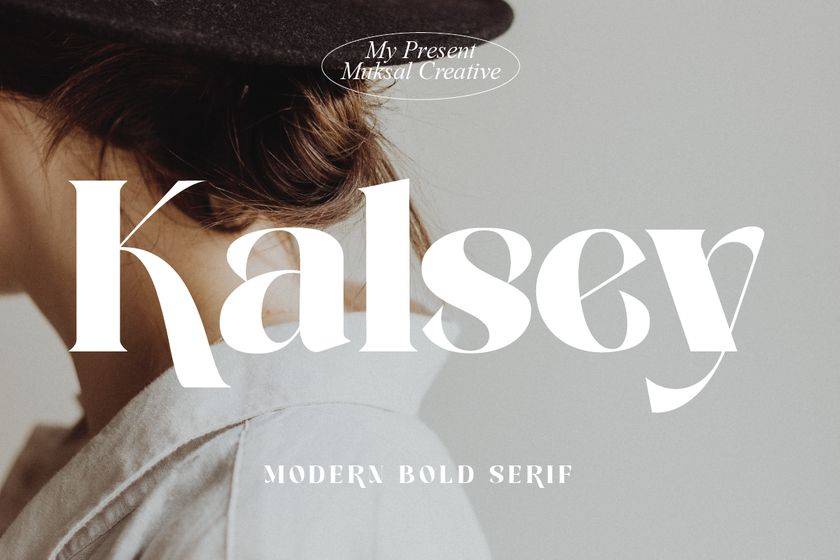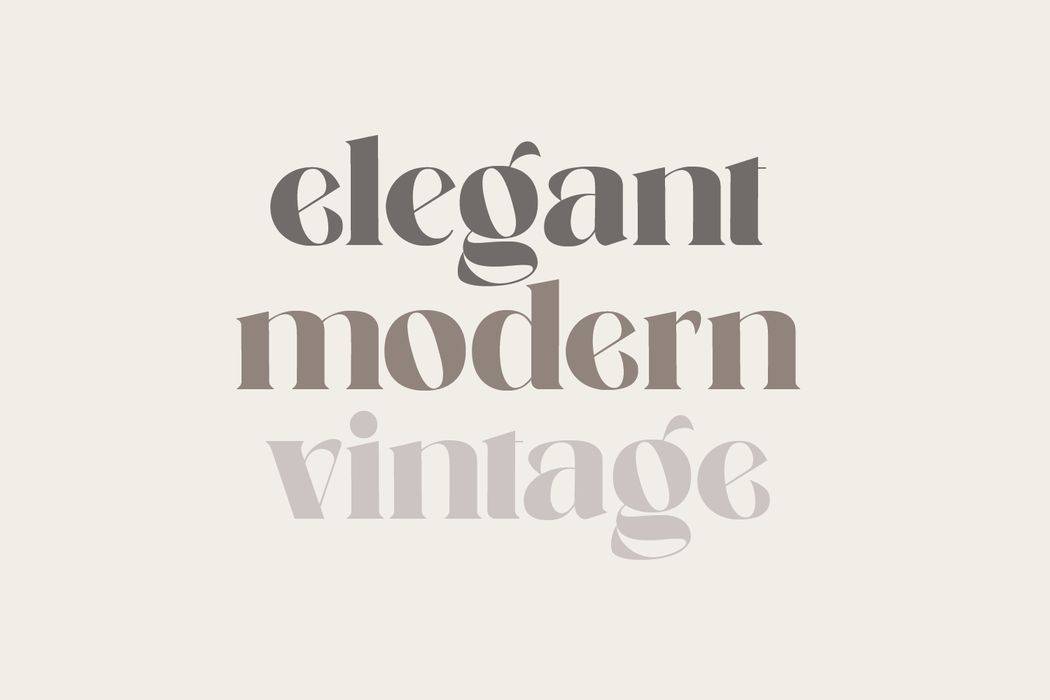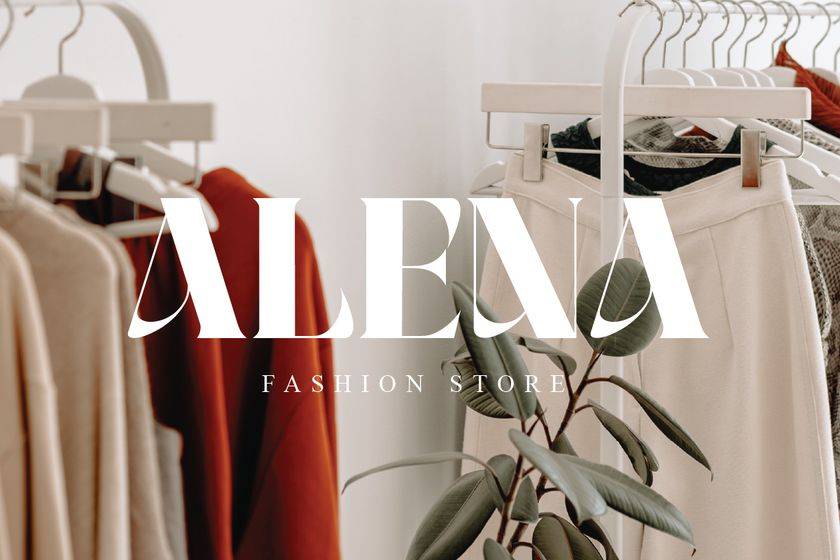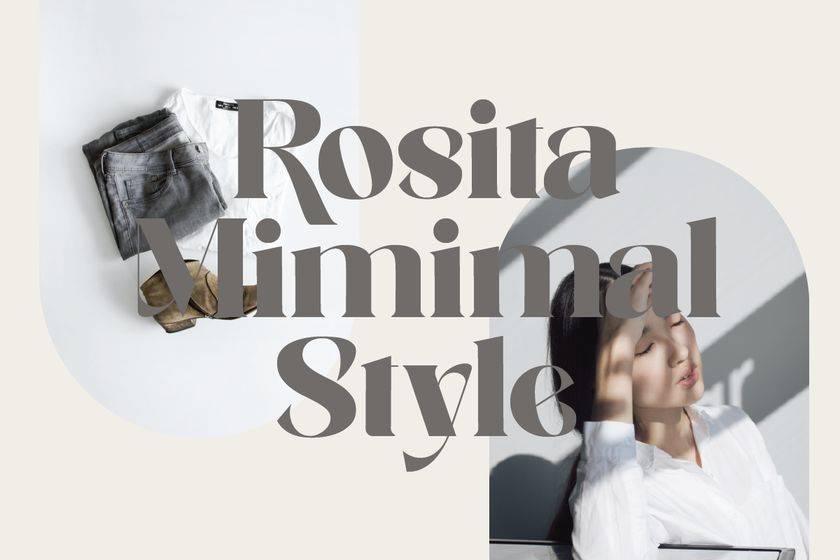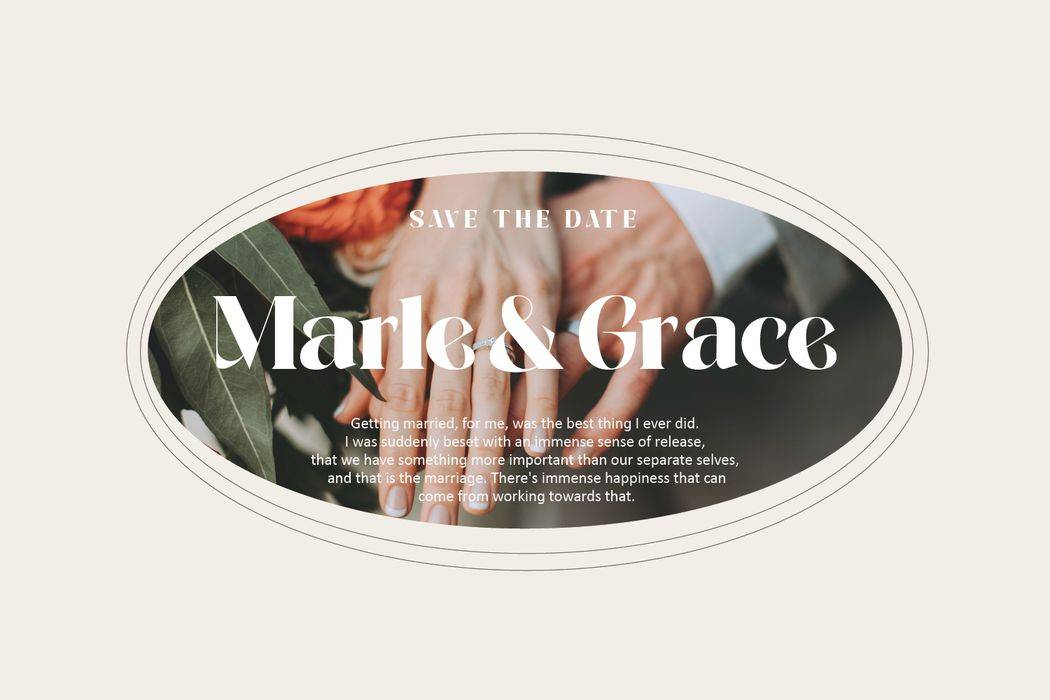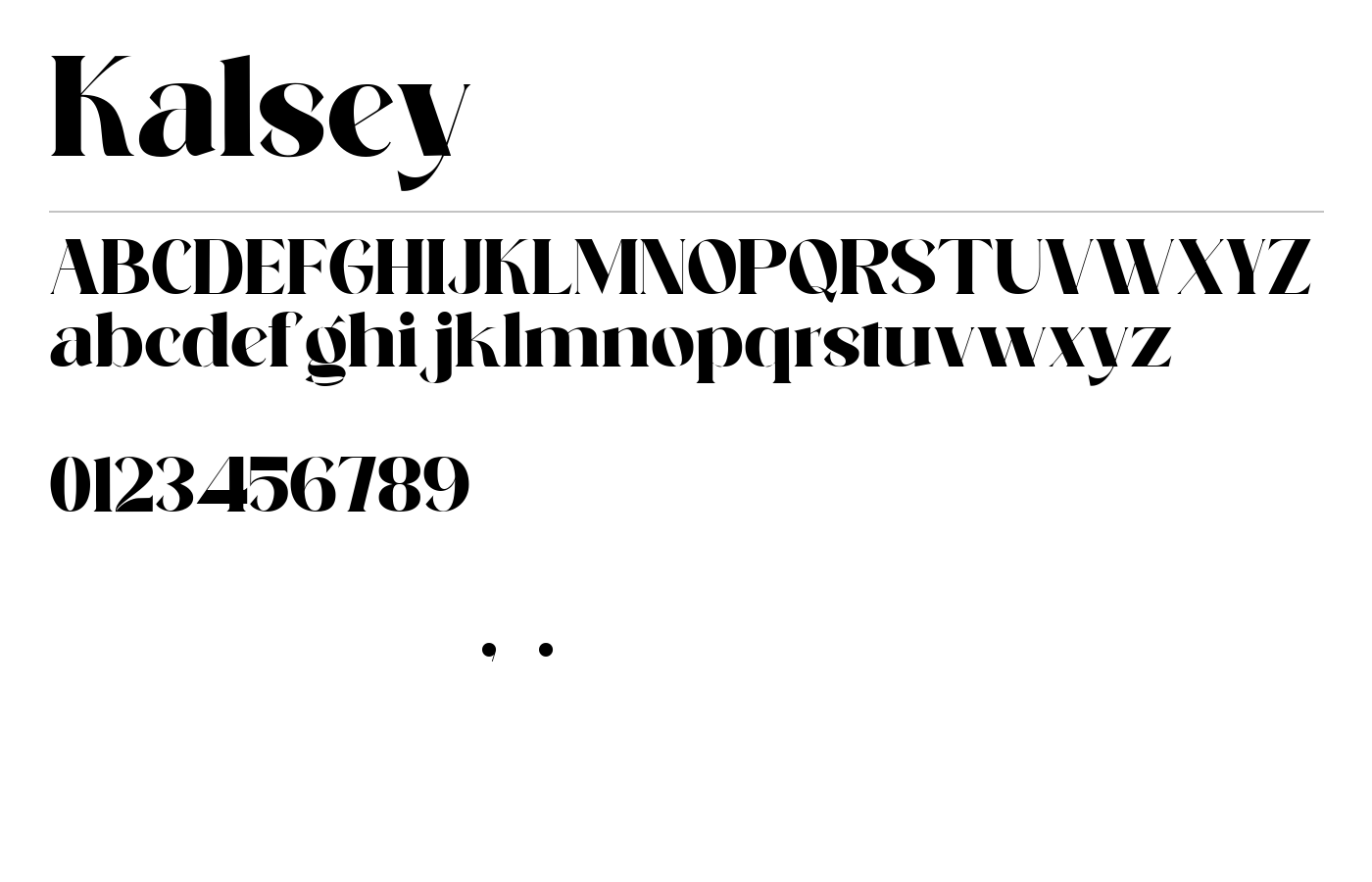
Kalsey is a bold modern serif font characterized by its high contrast between thick and thin strokes, and sharp, elegant serifs that add a sophisticated edge. Its strong presence and distinctive letterforms make it ideal for fashion branding, editorial headlines, and luxury packaging, where a stylish and impactful statement is needed. This font perfectly balances contemporary design with classic refinement, making it versatile for upscale and creative visual projects.
Kalsey Font
About Kalsey Font
| Font family | Kalsey Font |
| Designer | Muksal Creative |